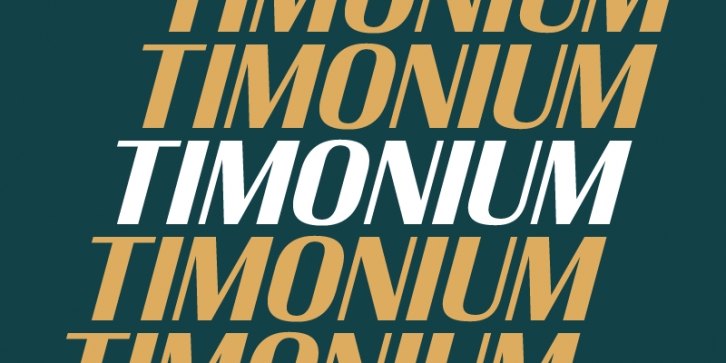
Timonium is a distinctive sans serif with an optimistic voice. The crisp, high-contrast forms are perfect for articulating forward looking communications in any context.